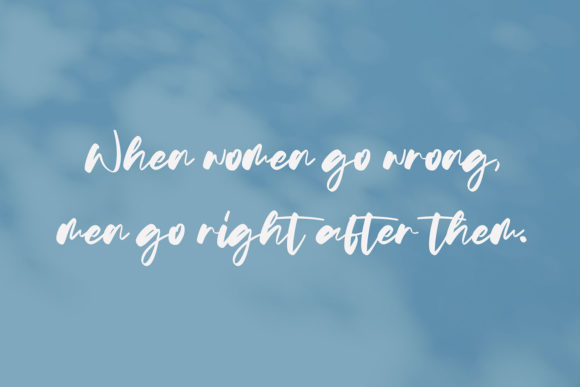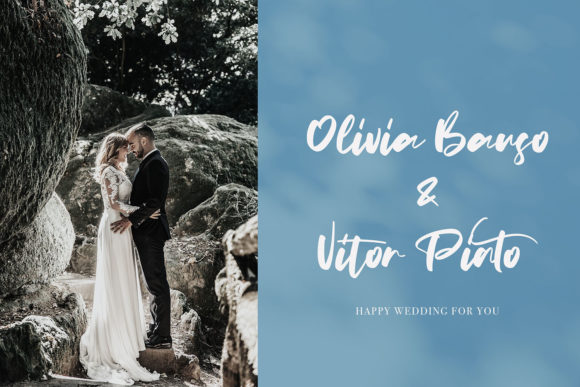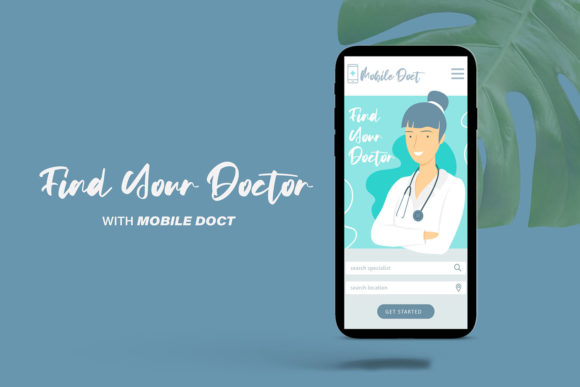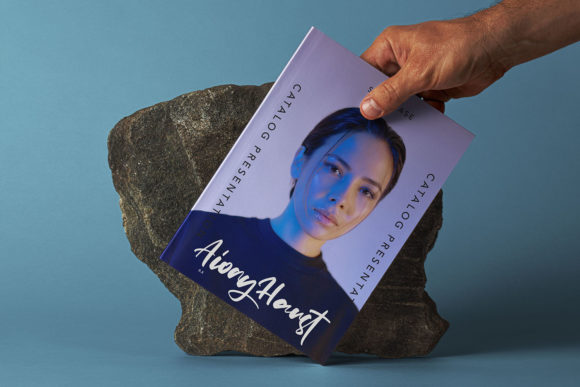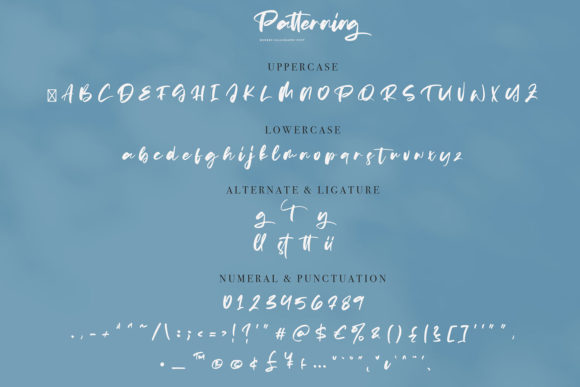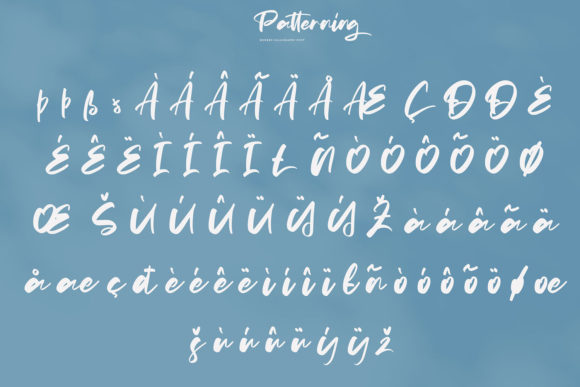
Introduction to Patterning Font
Have you ever found yourself rummaging through your craft supplies, searching for the perfect font to bring your DIY project to life? I know I have! There’s something magical about seeing a design come together, and the right font can make all the difference. Recently, I stumbled upon the Patterning Font, and I was immediately drawn to its unique charm.
What I love about the Patterning Font is the way it combines the organic feel of a brush pen with the precision of a pencil. The result is a stunning, one-of-a-kind handwritten font that’s perfect for adding a personal touch to your creative projects. Whether you’re a seasoned designer or a DIY enthusiast, this font is sure to become a valuable addition to your design resource library.
Patterning Font
- High-quality design resource featuring intricate patterns and designs, ideal for creative projects.
- Perfect for designers, artists, and crafters looking for a unique and creative design element to elevate their work.
- Includes a variety of styles and patterns, from geometric shapes to floral designs, to suit different tastes and preferences.
- Can be easily customized and edited using popular design software, making it a versatile and convenient design resource.
Honest Review: Patterning Font
As a designer, I’m always on the lookout for high-quality design resources that can help bring my creative projects to life. The Patterning Font is one such resource that I’ve been experimenting with, and I’m excited to share my honest review with you.
- High-quality design: The Patterning Font is incredibly detailed and visually appealing, making it perfect for use in a variety of creative projects.
- ⚠️ Limited customization options: While the Patterning Font is highly versatile, it would be even more useful with more customization options available.
- ⚠️ Not suitable for large-scale use: While the font is perfect for smaller projects, it may not be the best choice for larger, more complex designs.
Overall, I’m impressed with the Patterning Font and would definitely recommend it to designers looking for a high-quality design resource. While it may have some limitations, its benefits far outweigh its drawbacks, making it an excellent addition to any design toolkit.
Patterning Font
Patterning Font is a versatile design resource ideal for creative projects. This high-quality font offers a unique combination of style and functionality, making it perfect for a wide range of applications.
Tips for Getting the Most Out of Patterning Font
To get the most out of Patterning Font, use it with a transparent background to create a seamless design. Experiment with different font sizes, colors, and styles to achieve a unique look.